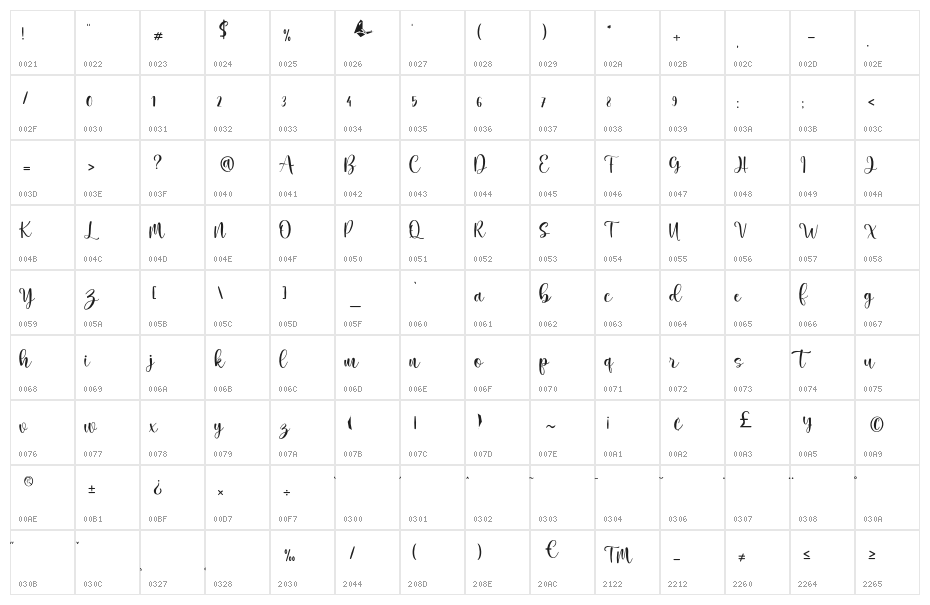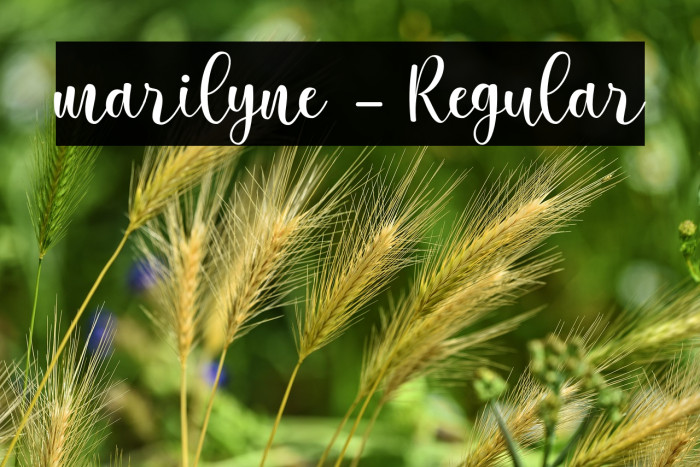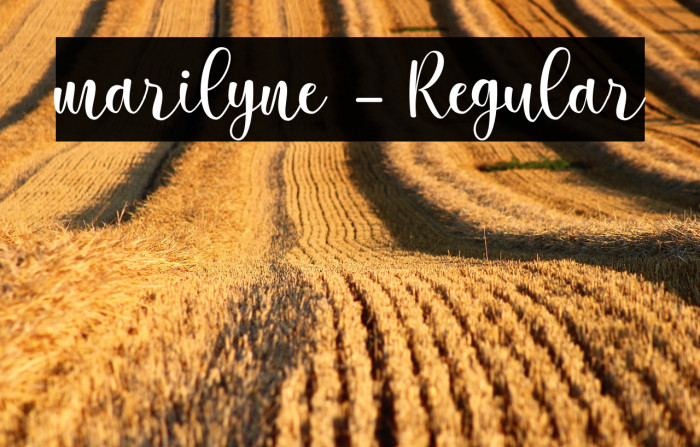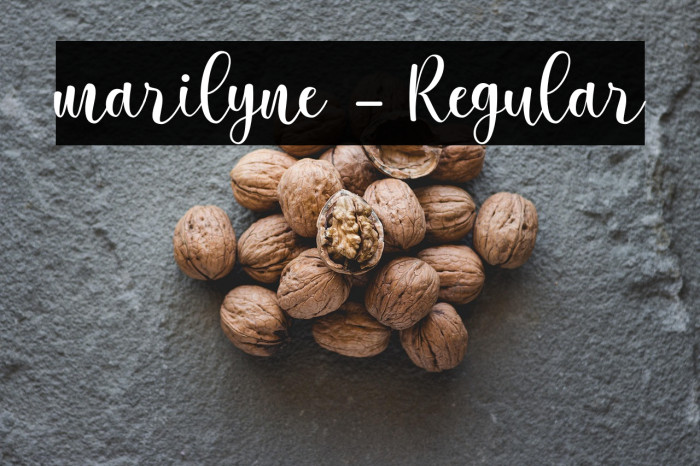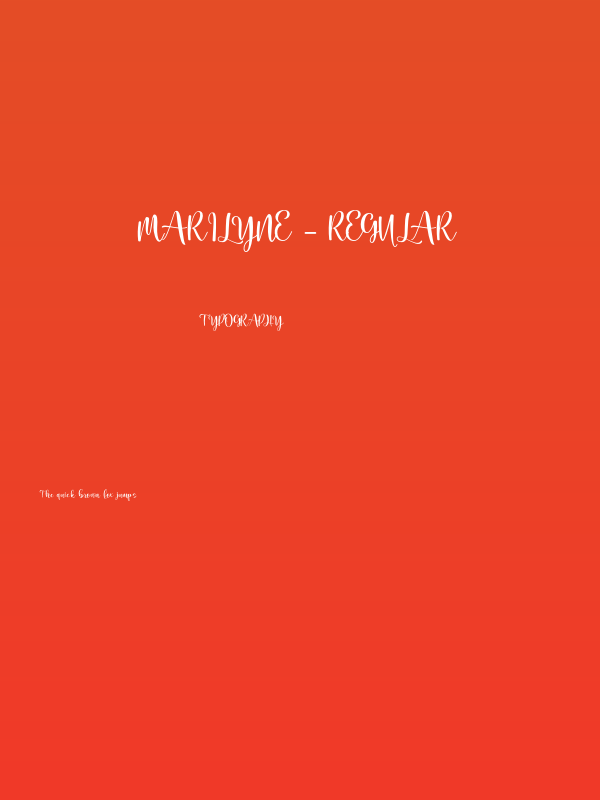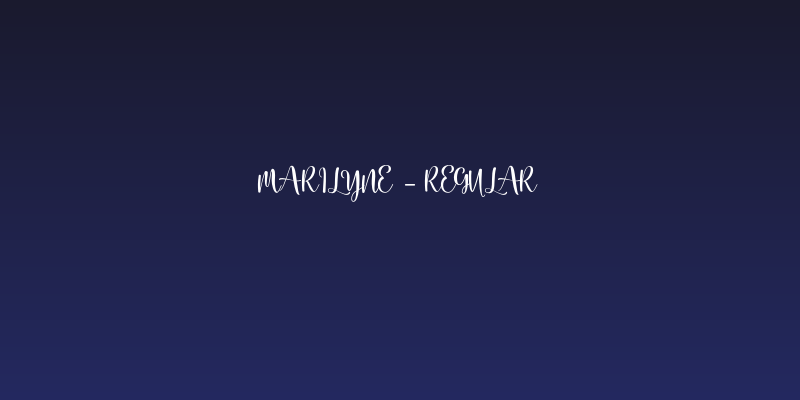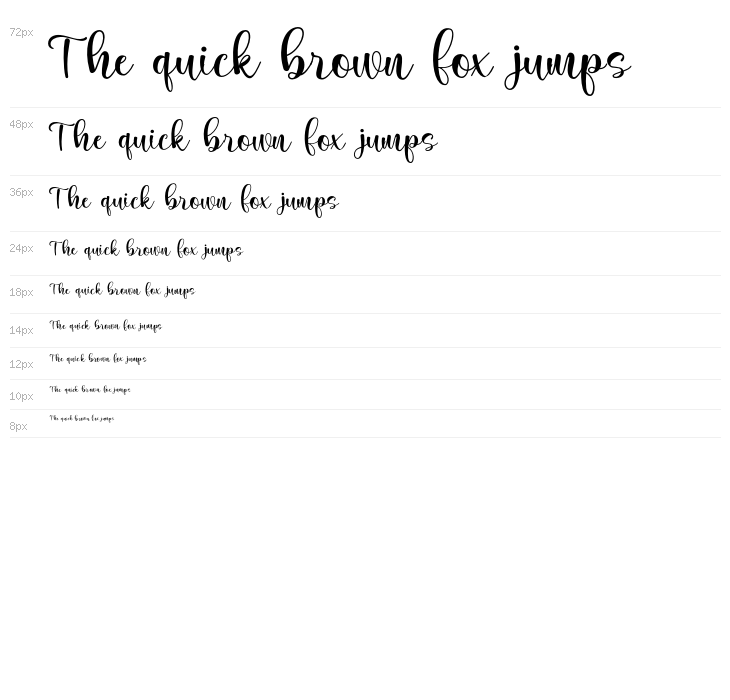
marilyne-Regular Font
marilyne-Regular Description
This font features a flowing, cursive style with elegant loops and swashes, giving it a handwritten appearance. The uppercase letters are bold and expressive, with distinctive flourishes that add a touch of sophistication. The lowercase letters maintain a consistent style, with smooth connections between characters, enhancing the script's fluidity. Numbers are designed to match the overall aesthetic, providing a cohesive look. Special characters are thoughtfully crafted, ensuring they blend seamlessly with the rest of the font. This typeface exudes a sense of elegance and charm, making it ideal for projects that require a personal touch.
Overall StyleElegant, Handwritten
Use CaseLogos, Invitations, Decorative text
Proposed ProjectsIdeal for wedding invitations, greeting cards, branding, and logo design.